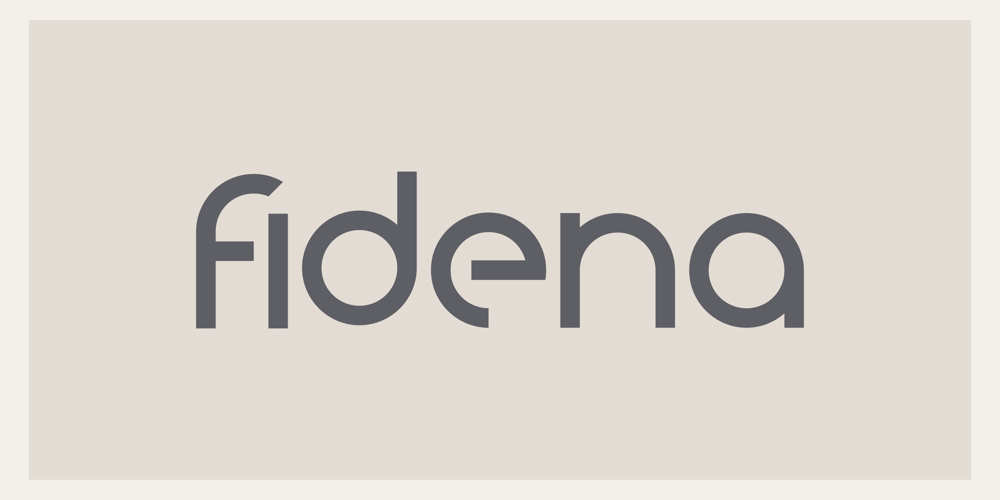
Fidena Font Family was designed by Suratno and published by Pandanwangi. Fidena contains 1 styles and family package options. idena is an elegant sans serif font. Suitable for a variety of designs because of its neat and simple style, Fidena has the potential to become your favorite font of choice, whatever the occasion!Fidena includes four extraordinary weights – ordinary, hollow, thick and thin! They all work perfectly with each other and are an ideal companion for scripts and serifs. Download this and see for yourself!